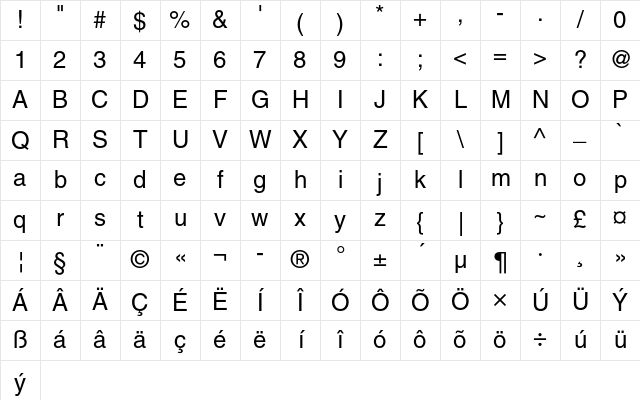
Helvetica CE Medium Free Font
Helvetica CE Medium
Style: CE Medium
Design Context for Helvetica
Helvetica is a composed and adaptable typeface that performs quietly and consistently across a wide range of design contexts.